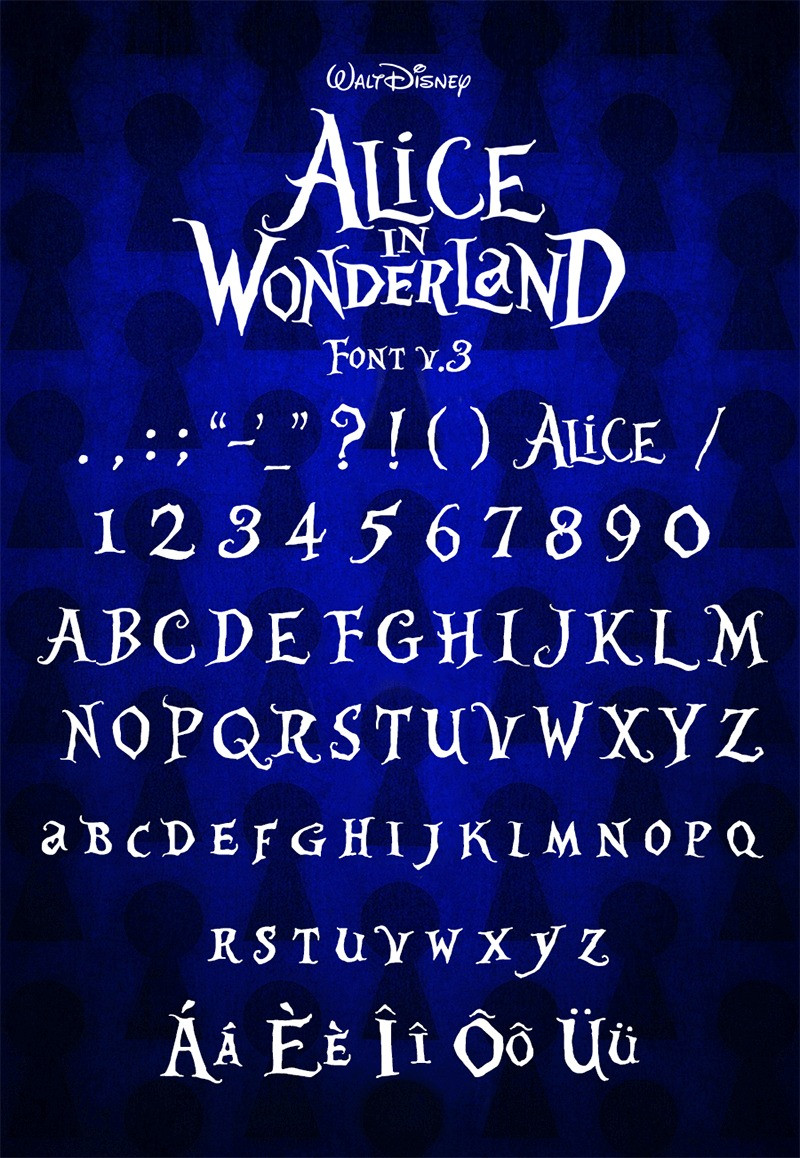
Alicia Wonderland Font, Font of the Movie Alice in Wonderlan (Alicia en el País de las Maravillas) 2010
Alicia Wonderland Font
| Designer Name: | FZ Fonts |